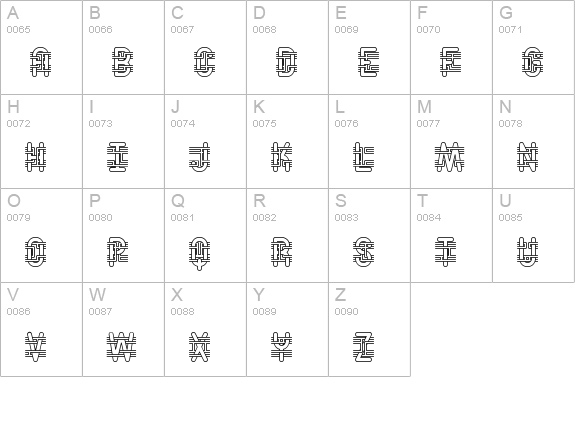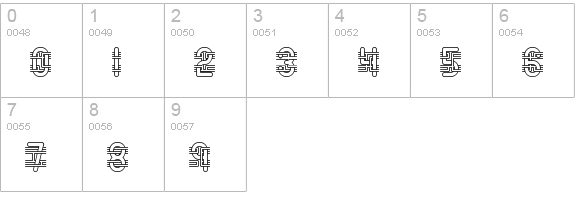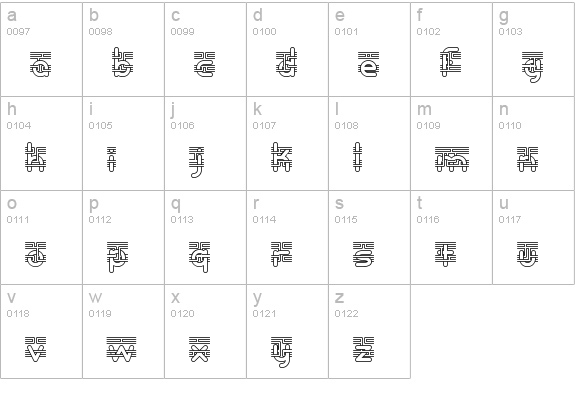
Entangled BRK font is a unique and intricate typeface that beautifully combines elements of both modern and traditional design. With its tangled and intertwining letters, this font exudes a sense of complexity and sophistication that is sure to make your designs stand out. What sets Entangled BRK font apart is not only its striking appearance, but also its versatility. Whether you're working on a logo, poster, or website, this font will add a touch of elegance and creativity to your projects. And the best part? Entangled BRK font is completely free to download at FontsMarket.com. That's right, you can enhance your designs with this stunning font without spending a dime. So why wait? Download Entangled BRK font today and take your design game to the next level!